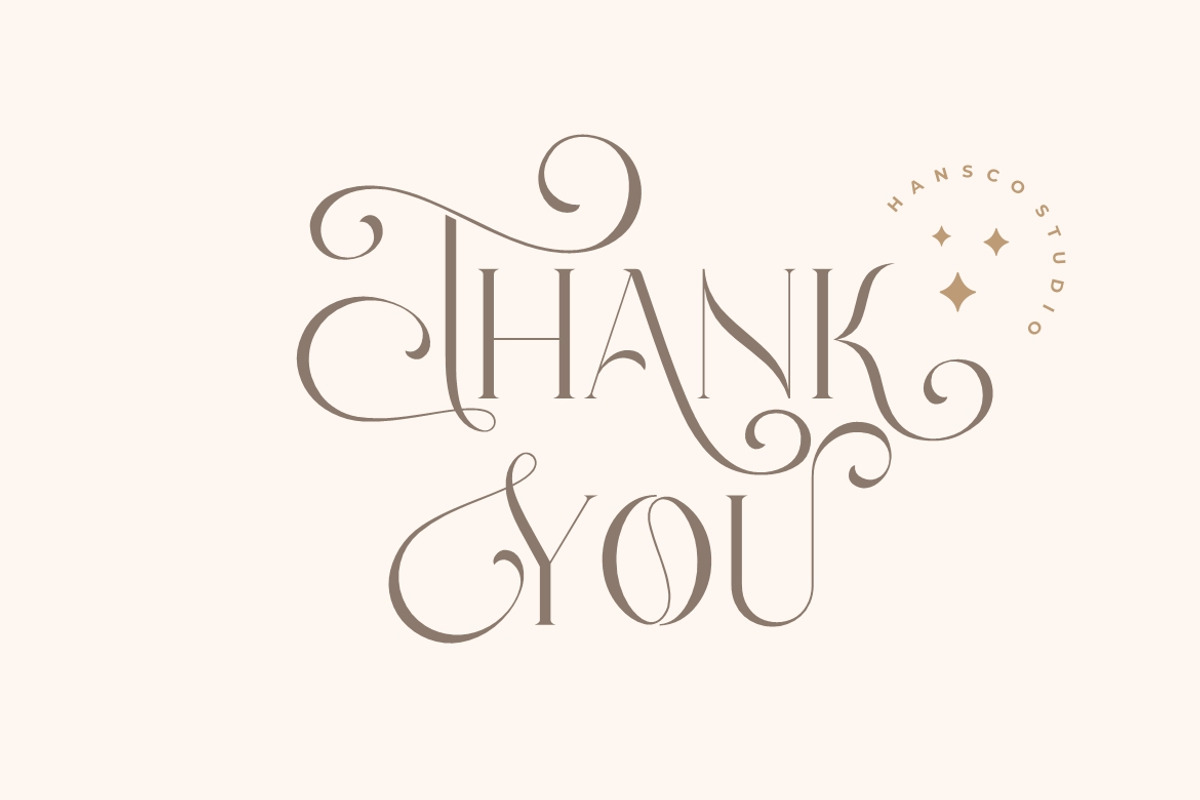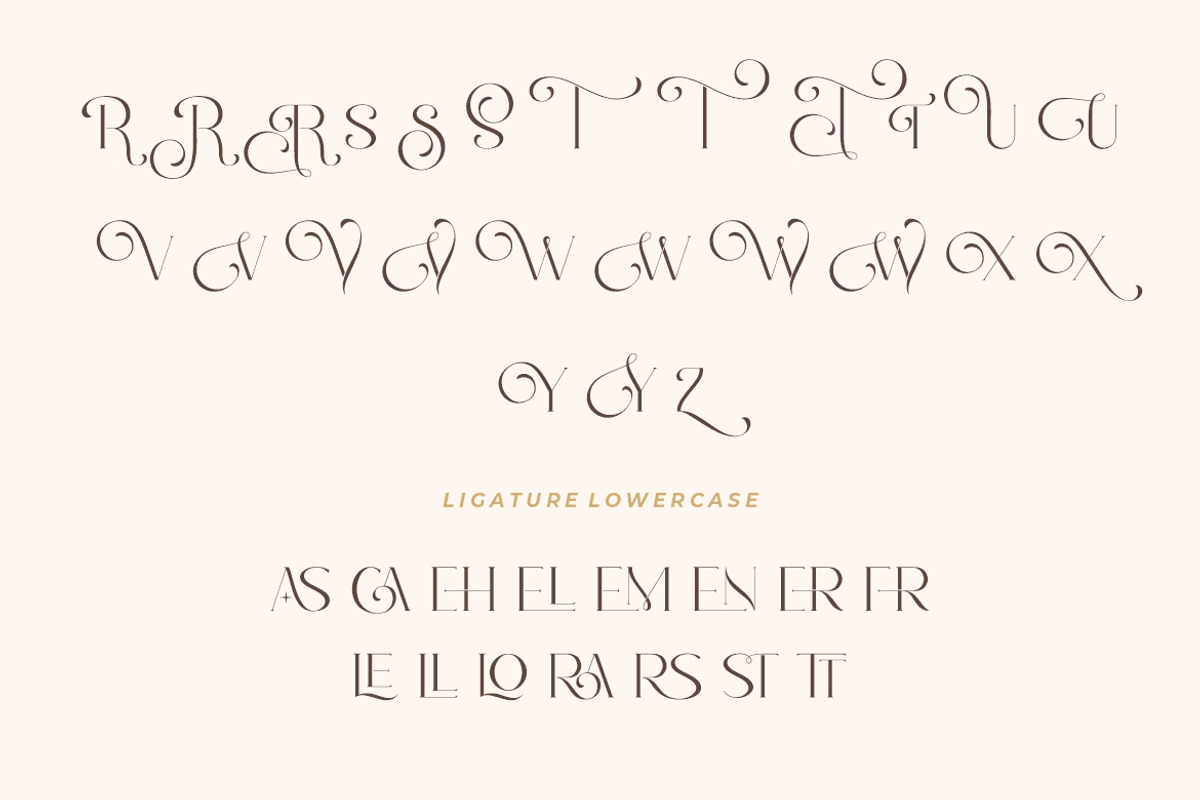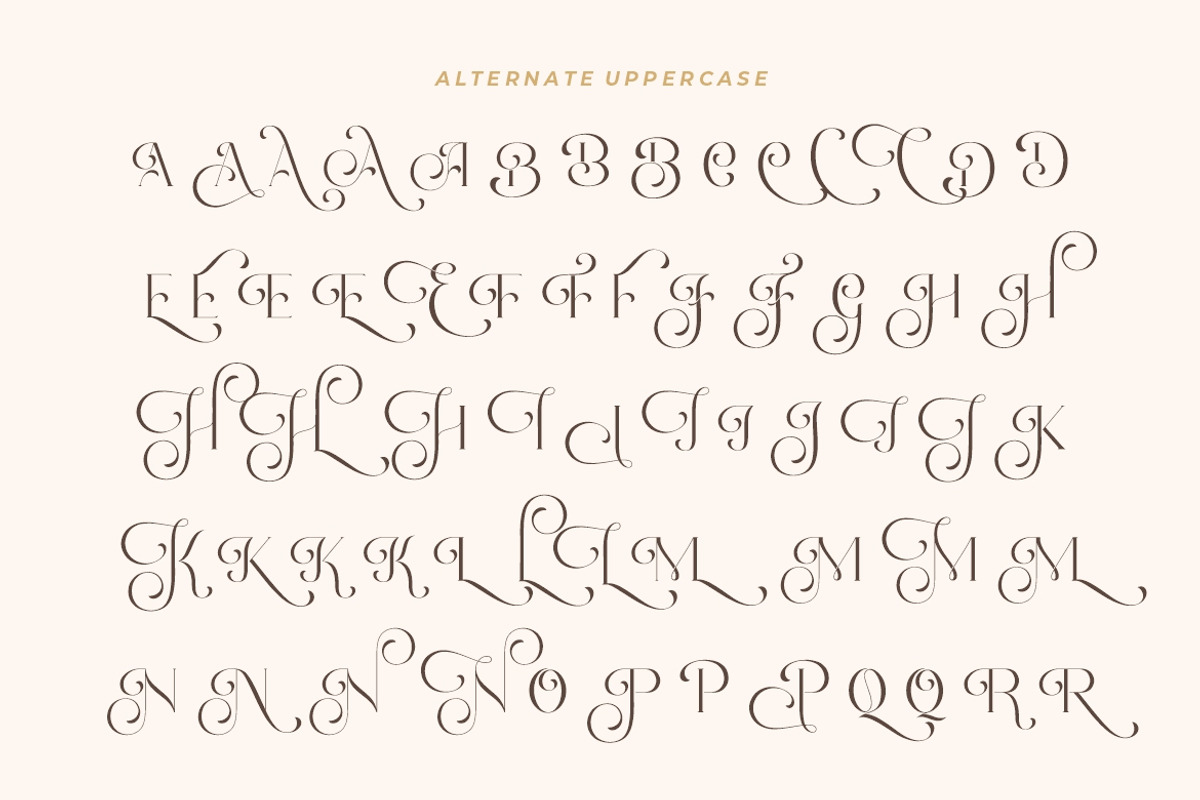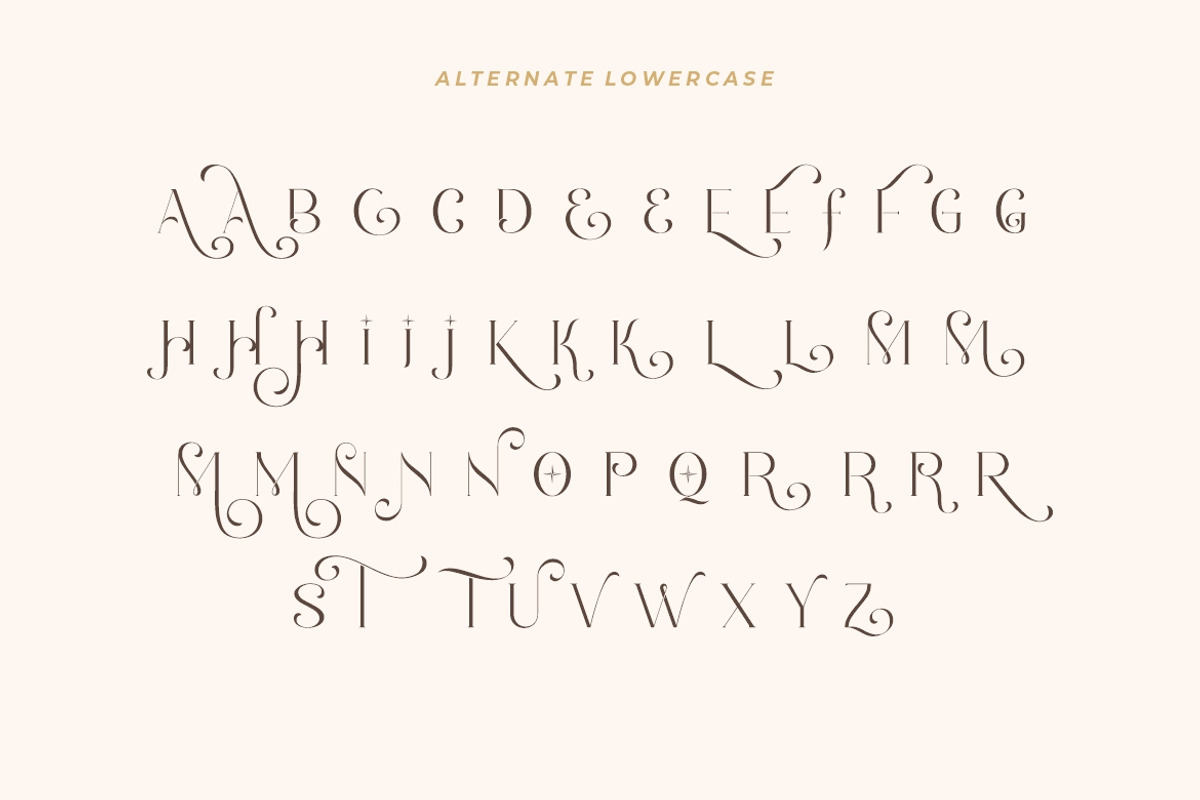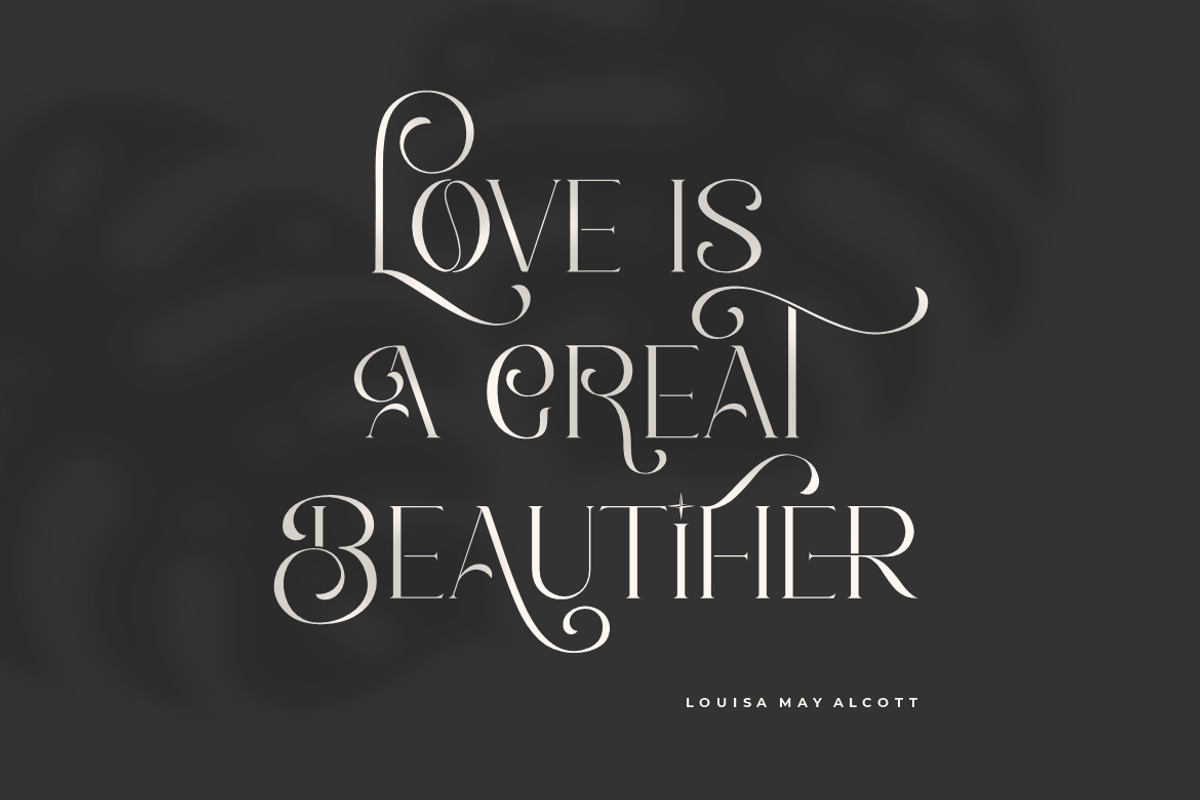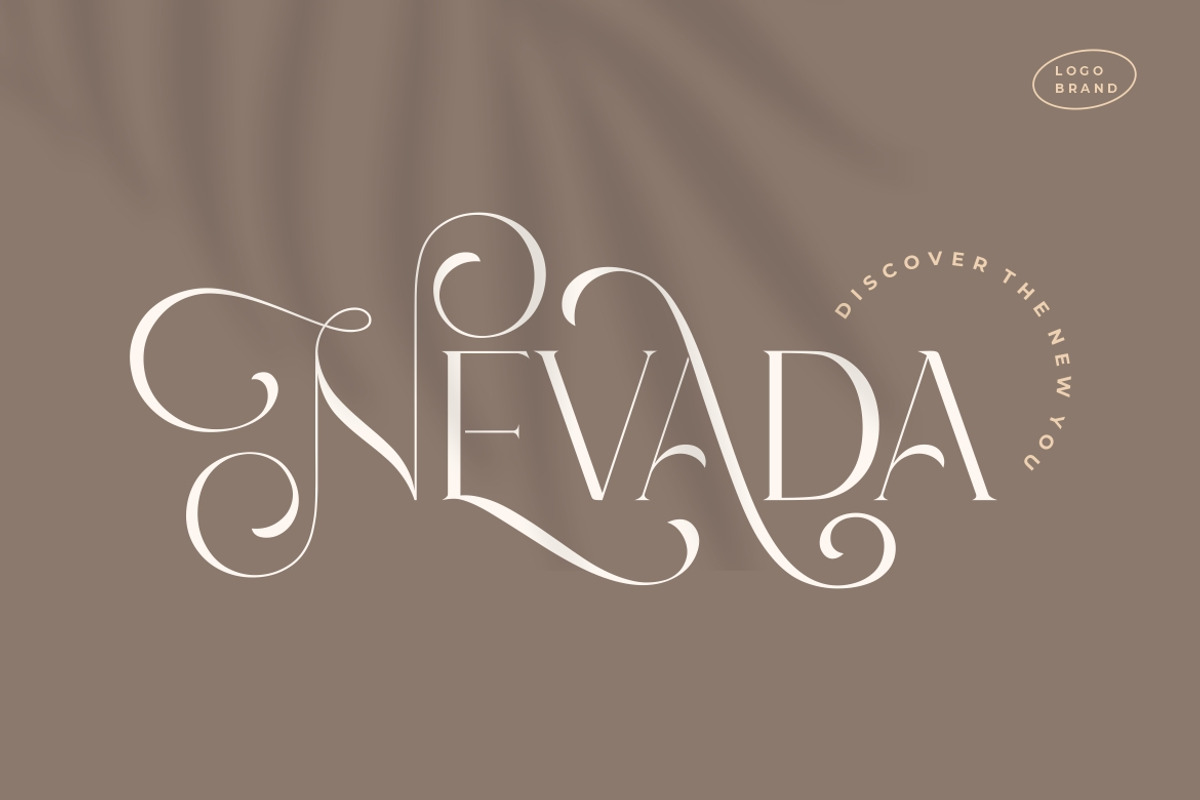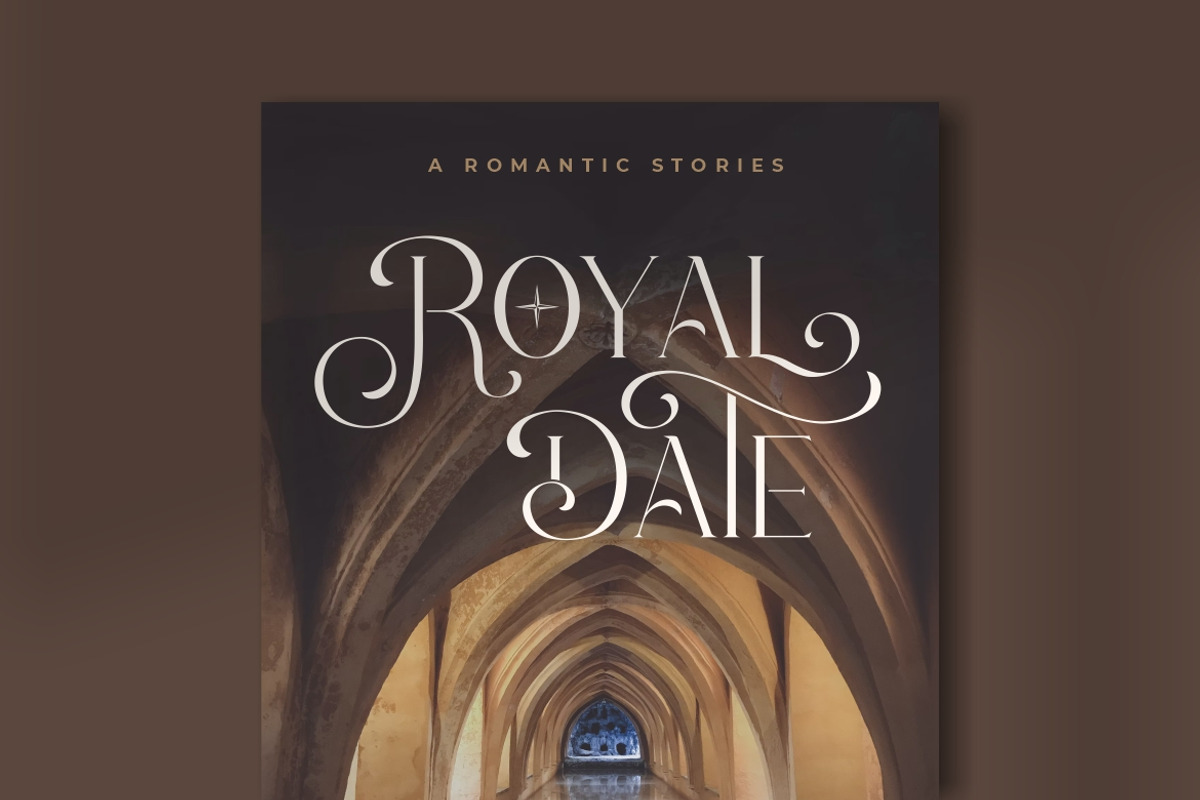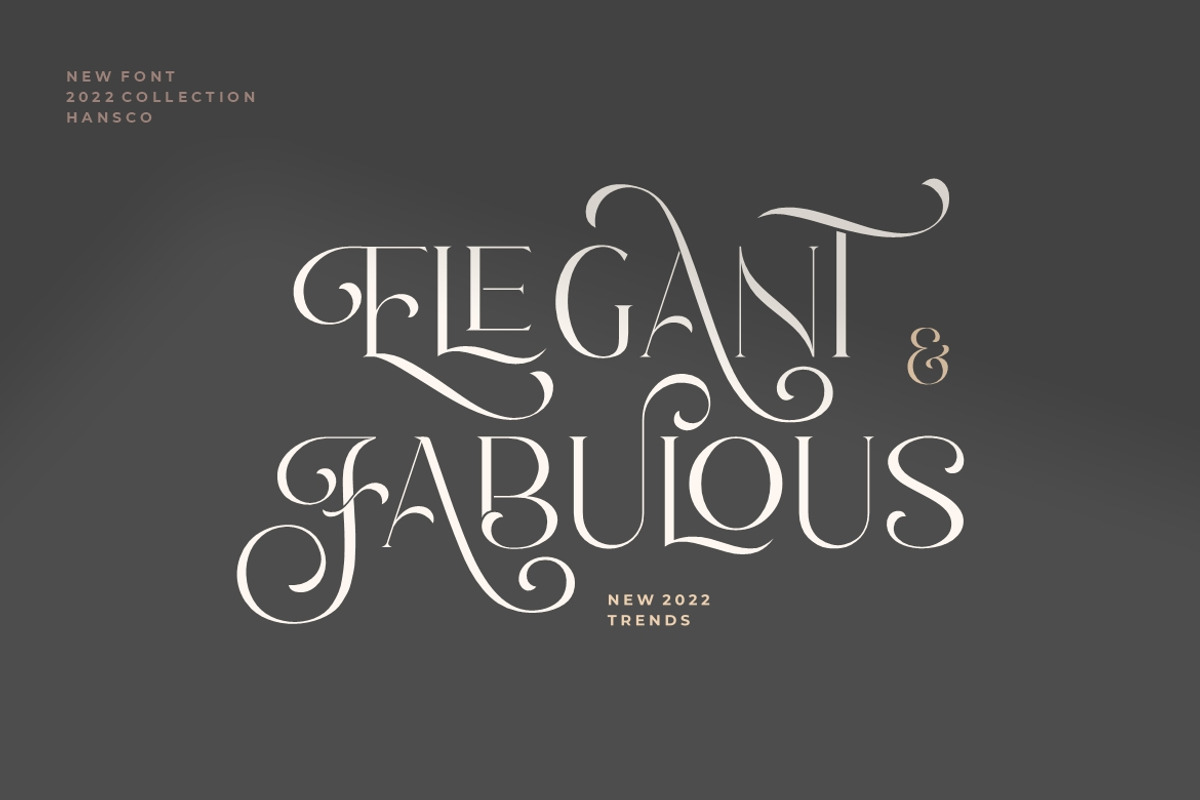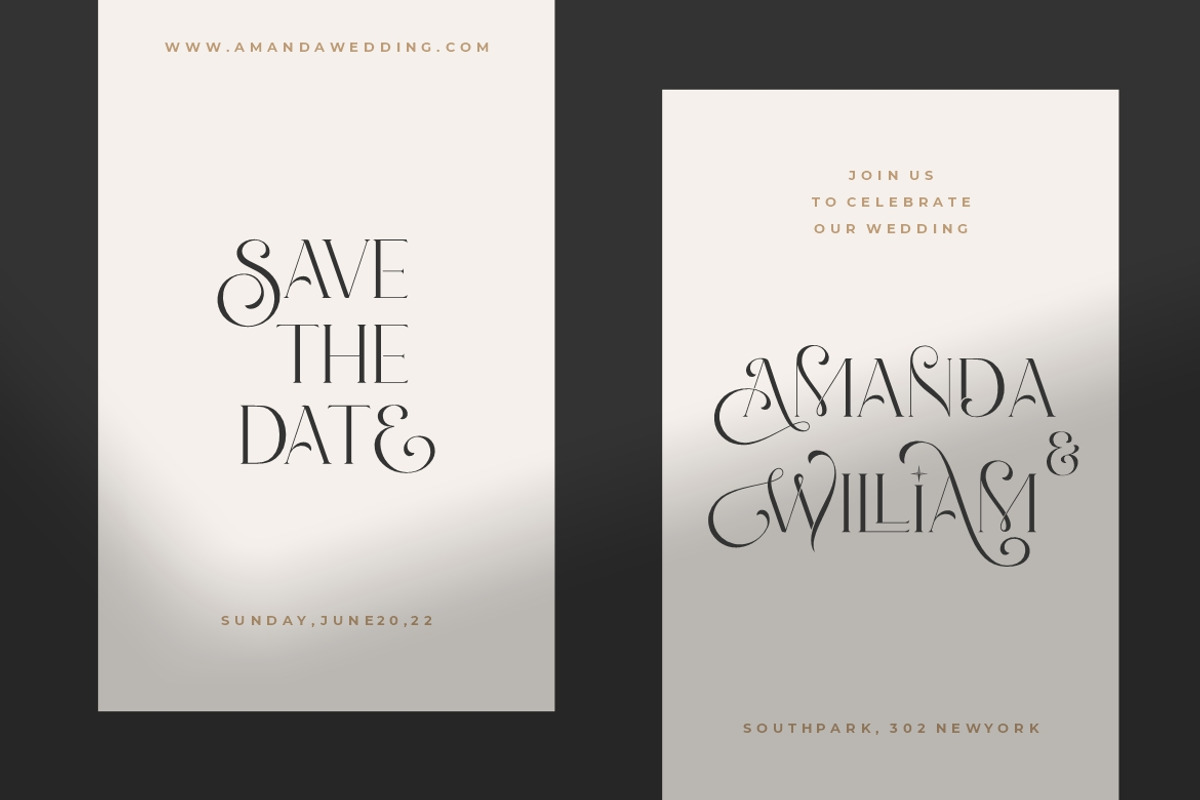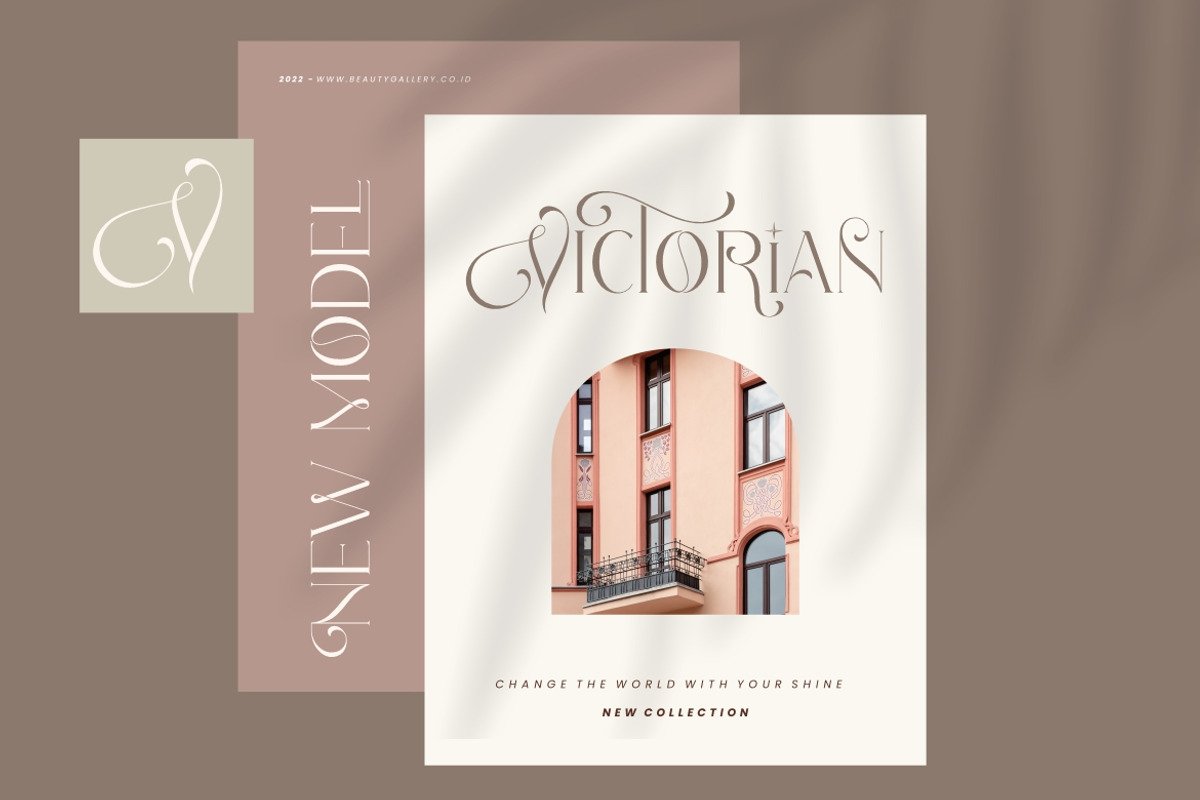
Romantic Serif - Elegant Classy Font
Romantic Serif is a modern and elegant display serif fonts that had a sleek and luxury feel. This font is perfectly into classy moodboards and logos projects. Romantic Sans come with a unique all caps and many alternates and ligature plus numbers, punctuation & multilingual letters.
- uppercase & lowercase ( in All Caps )
- alternates